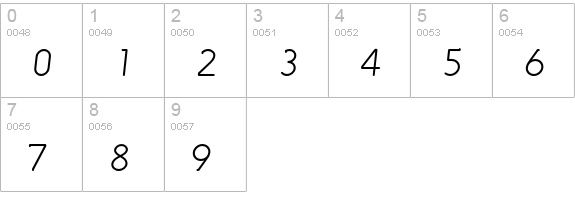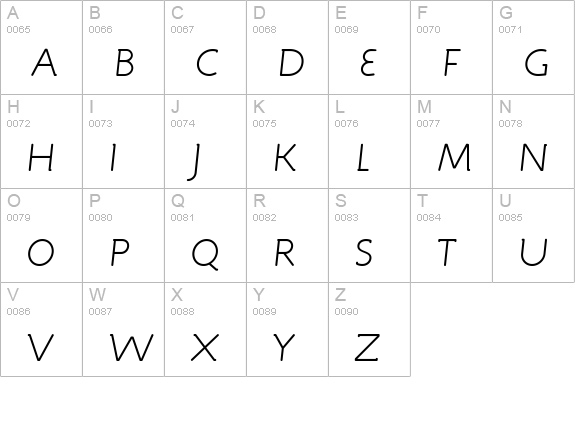
Engine-LightItalicLF font is a sleek and modern typeface that exudes elegance and sophistication. Its slender and italicized design adds a touch of style to any project, making it perfect for use in both print and digital media. The font features clean lines and a contemporary look that is sure to catch the eye of your audience. What sets Engine-LightItalicLF font apart is that it is not only visually appealing, but also completely free to use. You can download this versatile font for your personal and commercial projects without any cost at FontsMarket.com. Whether you're working on a branding project, a website design, or any other creative endeavor, Engine-LightItalicLF font is a fantastic choice that will elevate your work to the next level. Don't miss out on the opportunity to enhance your designs with this beautiful and free font today!